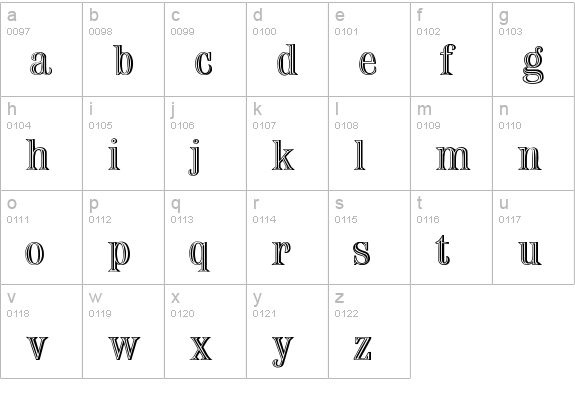
Handtooled Normal Font Details
Handtooled Normal is the standard, neutral variant in the Handtooled typeface family \xE2\x80\x94 well suited to general body text, paragraphs, and standard typographic work.
Handtooled Normal font is a beautifully crafted typeface that encapsulates the essence of elegance and artistry. Its intricate details and handcrafted design make it a perfect choice for projects that require a touch of sophistication and uniqueness. With its bold and captivating strokes, this font captures attention and leaves a lasting impression. Handtooled Normal font effortlessly combines classic serifs with a contemporary twist, resulting in a versatile and timeless typeface. Whether used for headlines, logos, invitations, or any other creative endeavor, this font adds a touch of refinement and refinement. What makes Handtooled Normal font even more exceptional is that it is freely available to download at FontsMarket.com. This means that you can harness the power of this remarkable font without any financial constraints. It is a true gem for designers, artists, and anyone seeking to elevate their projects with a touch of elegance. The versatility of Handtooled Normal font allows it to seamlessly adapt to various design styles and contexts. Its legibility and readability, even at smaller sizes, ensure that your message is effectively communicated to your audience. Whether you are designing a magazine layout, creating a brand identity, or working on a personal project, this font will effortlessly elevate your work to new heights. The attention to detail in Handtooled Normal font is truly remarkable. Each curve and line is meticulously crafted, resulting in a typeface that exudes a sense of precision and craftsmanship. Its unique charm and character will undoubtedly captivate the viewer's attention, leaving a lasting impression. In conclusion, Handtooled Normal font is a stunning typeface that effortlessly combines elegance, artistry, and versatility. Its freely available download at FontsMarket.com makes it accessible to all, ensuring that anyone can add a touch of sophistication to their projects. Whether used for print or digital mediums, this font is a true testament to the beauty of typography.